Chalk fonts are a great way to add a unique and artistic touch to any design. These fonts can bring the nostalgic charm of a sidewalk chalkboard to the digital world, making them perfect for various projects. With their distinct textures and styles, chalk fonts can transform a simple message into a captivating piece of art. In this article, we’ll explore 15 chalk fonts available in Canva that will elevate your artwork. Whether you’re aiming for a vintage look or a modern twist, these chalk fonts offer the versatility and aesthetic appeal to make your projects stand out. From bold and impactful to light and whimsical, these fonts provide a range of choices to enhance your designs and help you create something truly unique.
1. Authenia Textured
Why it stands out: Authentia Textured brings a rustic, hand-drawn feel to projects, reminiscent of chalk on a textured blackboard. Its uneven lines and natural flow make it ideal for artistic and informal designs. This font’s textured effect adds depth and authenticity to chalk-inspired designs, making it a perfect choice for creating a tactile, handcrafted appearance.
2. Berton
Why it stands out: Berton combines the simplicity of chalk writing with unique design twists, featuring irregular shapes and sizes that capture the spontaneity of chalk art. : Its playful irregularities and varied letter forms offer a dynamic and lively vibe, perfect for engaging and eye-catching designs.
3. Cabin Sketch
Why it stands out: Cabin Sketch mimics the look of quick chalk sketches, complete with shading and texture that gives it a three-dimensional quality. The sketch-like appearance of Cabin Sketch brings a casual and creative flair to designs, ideal for informal or artistic projects needing a touch of whimsy.
4. Carlitos
Why it stands out: Carlitos is a bold and flowing script font that has the smoothness of chalk strokes, providing a personal and intimate feel. Its fluidity and elegance make it great for designs that require a touch of sophistication while maintaining a hand-drawn, approachable look.
5. Have Heart Two
Why it stands out: This font features a cohesive, cursive style with bold strokes and a dynamic baseline, echoing the fluidity of chalk hand lettering. Have Heart Two stands out for its boldness and energy, making it suitable for impactful messages and designs that need to convey emotion and vitality.
6. Londrina Sketch
Why it stands out: Londrina Sketch is a quirky and thin font that captures the essence of impromptu chalk drawings, with its uneven lines and distinctive character shapes. Its unique and playful style injects personality and creativity into designs, perfect for standing out in a crowded visual space.
7. Lousiville II
Why it stands out: Lousiville II is a neat, legible font that still carries the charm of chalk writing, making it versatile for both text-heavy and decorative designs. Its clarity and simple charm make it a reliable choice for conveying messages clearly while keeping the aesthetic appeal of chalk art.
8. Quick Silver
Why it stands out: Quick Silver offers a sleek and flowing handwritten style with the casual elegance of chalk script, ideal for fashion-forward and contemporary designs. Its modern and fluid design captures the trendiness of quick chalkboard signs, perfect for stylish and minimalist projects.
9. Rushk
Why it stands out: Rushk stands out with its bold, condensed characters and rough texture, mimicking the pressure and variation of chalk writing. The font’s robust and textured appearance makes it great for headlines and statements that need to grab attention.
10. Seashore
Why it stands out: Seashore brings a whimsical and artistic feel to the table, with letters that seem to dance and flow like waves, perfect for themes related to nature or creativity. Its fluid, organic shapes, and playful style make it a natural choice for designs that aim to be enchanting and imaginative.
11. Selima
Why it stands out: Selima’s loose, flowing script with varied line weights captures the spontaneity and expressiveness of hand-drawn chalk lettering. The font’s informal and fluid style lends a personal, human touch to designs, ideal for invitations, quotes, or any project needing a handwritten feel.
12. Six Hands Chalk
Why it stands out: This font features collaborative, multi-hand lettering that offers a diverse and dynamic chalk look, simulating the effect of several people writing on the same surface. Its varied lettering styles provide a lively and authentic chalkboard experience, perfect for communal or educational settings.
13. Sprite Graffiti
Why it stands out: Sprite Graffiti combines the urban edge of graffiti with the rustic charm of chalk, offering a font that is both rebellious and playful. Its street-style aesthetics bring an edgy, contemporary vibe to designs, suitable for projects that want to make a bold statement.
14. Sunset Hill
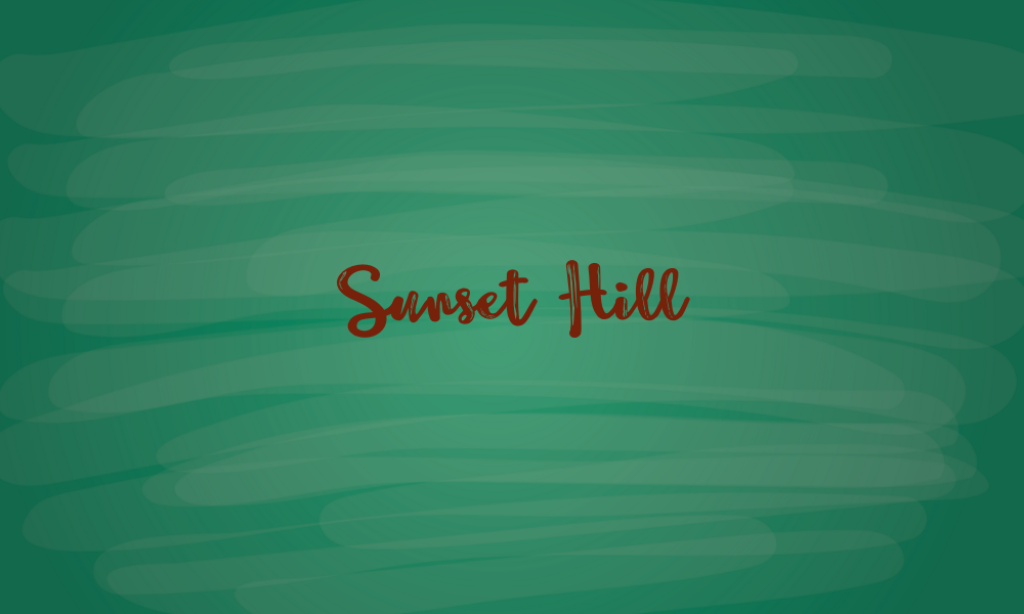
Why it stands out: Sunset Hill provides a smooth, flowing script that exudes charm and ease, reminiscent of evening chalk messages on a sidewalk café’s board. The font’s casual elegance and readability make it perfect for designs that require a touch of warmth and invitation
15. Waterlily
Why it stands out: Waterlily makes it onto the list of top chalk fonts in Canva due to its graceful and artistic style, which can add a touch of elegance and sophistication to any artwork. Its gentle curves and refined appearance make it ideal for projects that require a more subtle and refined chalk effect, such as formal invitations, boutique signage, or artistic displays.